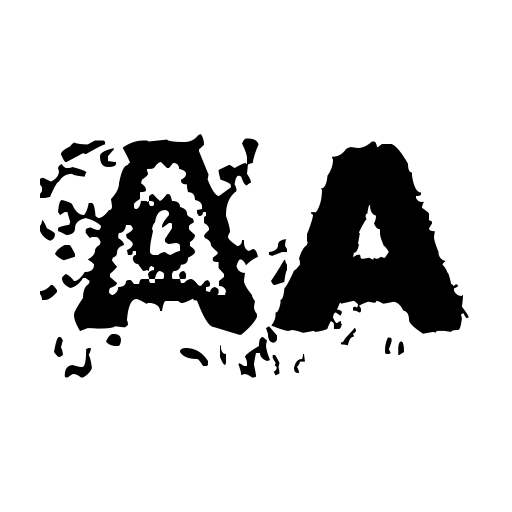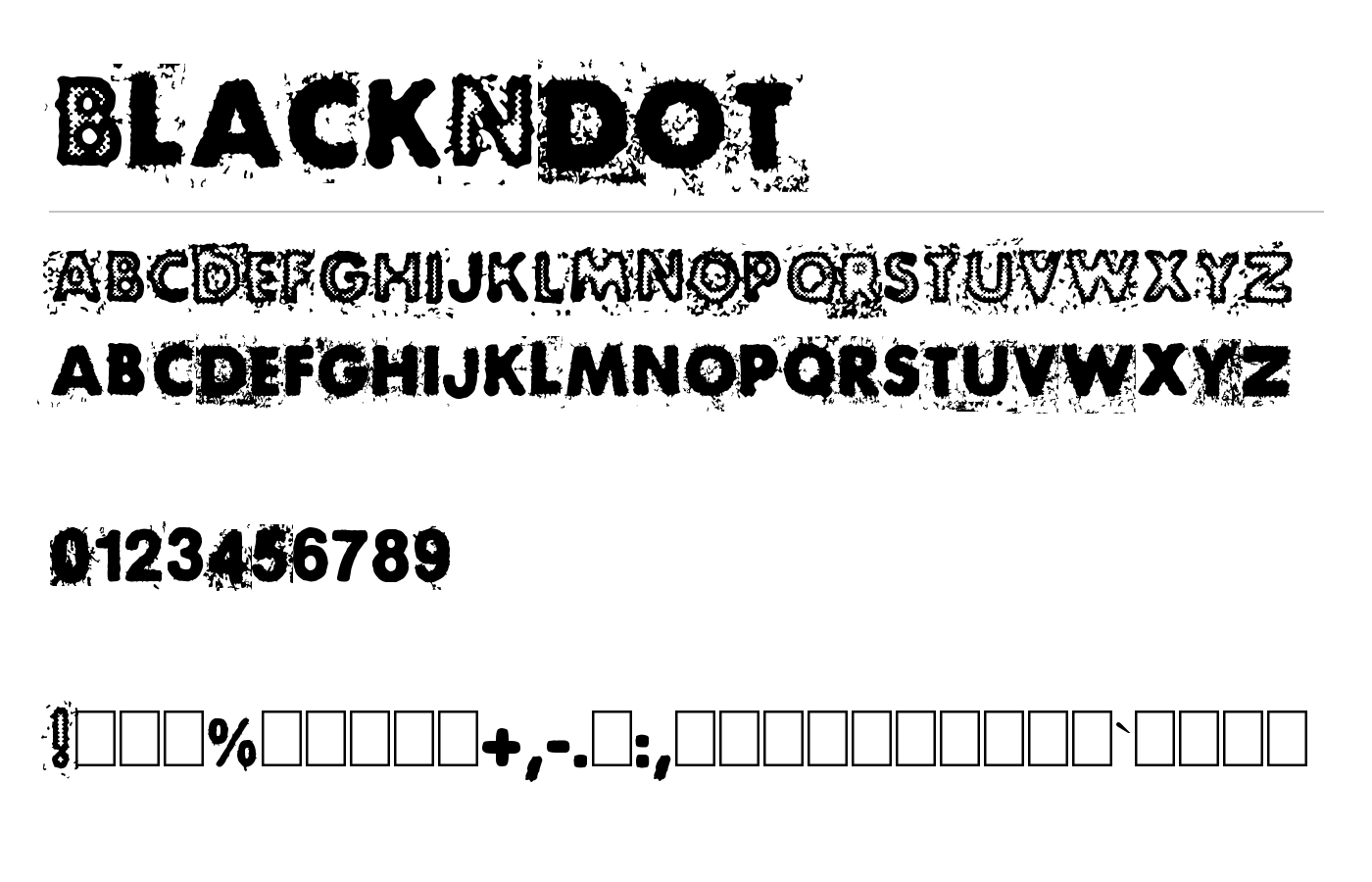
BlackNdot is a bold, distressed sans serif font characterized by its rough, dotted texture that gives it a gritty and edgy look. With its strong, heavy weight and irregular edges, it conveys a rugged, urban feel ideal for eye-catching headlines, posters, and branding that needs an unconventional and dynamic style. This font works best in creative, informal contexts where a striking, distressed aesthetic is desired.
BlackNdot Font
About BlackNdot Font